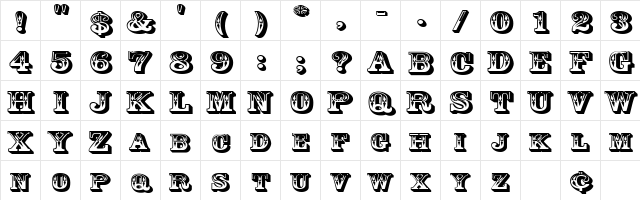
GoldRushExtended Regular
Design Context for GoldRushExtended Typeface
GoldRushExtended is a composed and adaptable typeface that performs quietly and consistently across a wide range of design contexts.